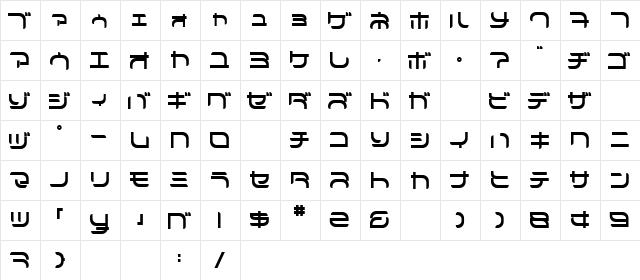
Hyperion kat Font Preview
Hyperion kat
Hyperion kat Font Details
| Style | kat |
Design Context for Hyperion Typeface
Hyperion is a composed and adaptable typeface that performs quietly and consistently across a wide range of design contexts.